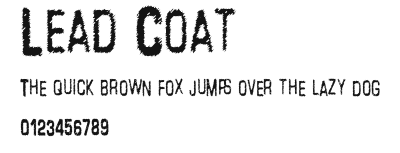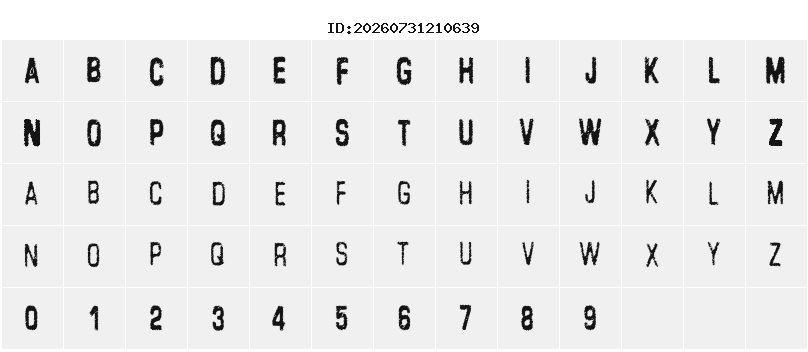
• Font Name: Lead Coat
About Lead Coat.ttf
Lead Coat.ttf is a modern, elegant sans-serif font designed for ultimate readability and visual harmony. Perfect for branding, headlines, web design, and print materials.